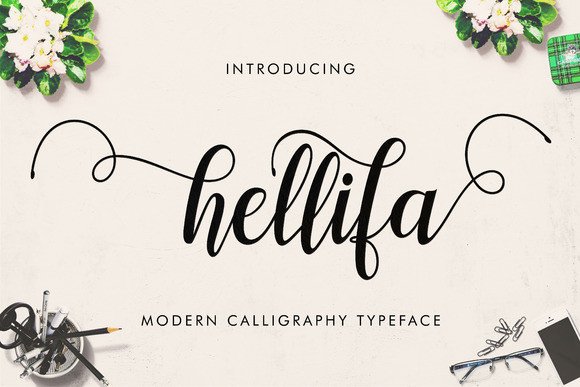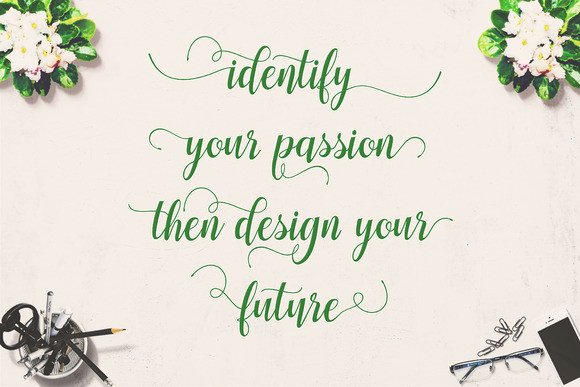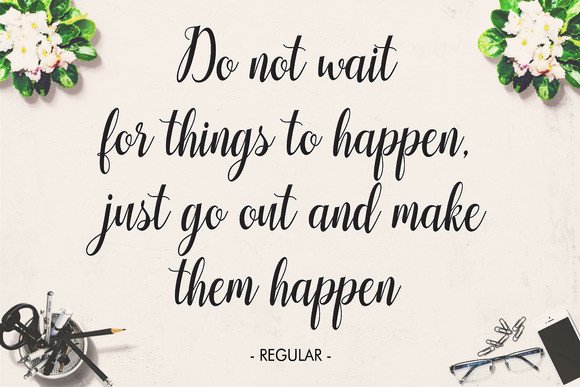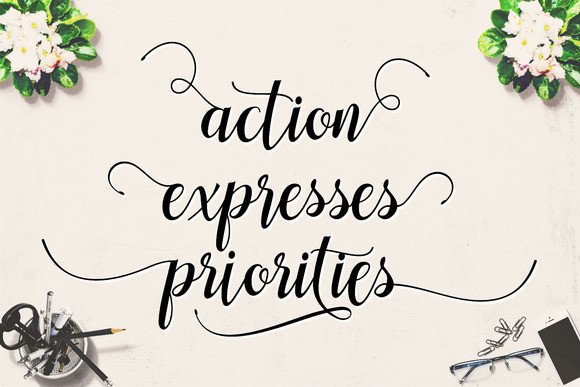
About Hellifa Font
Hellifa is a modern handmade script with a calligraphic style. The decorative letters dance on the screen.
This is the perfect font for invites, thank you notes, posters and much more.